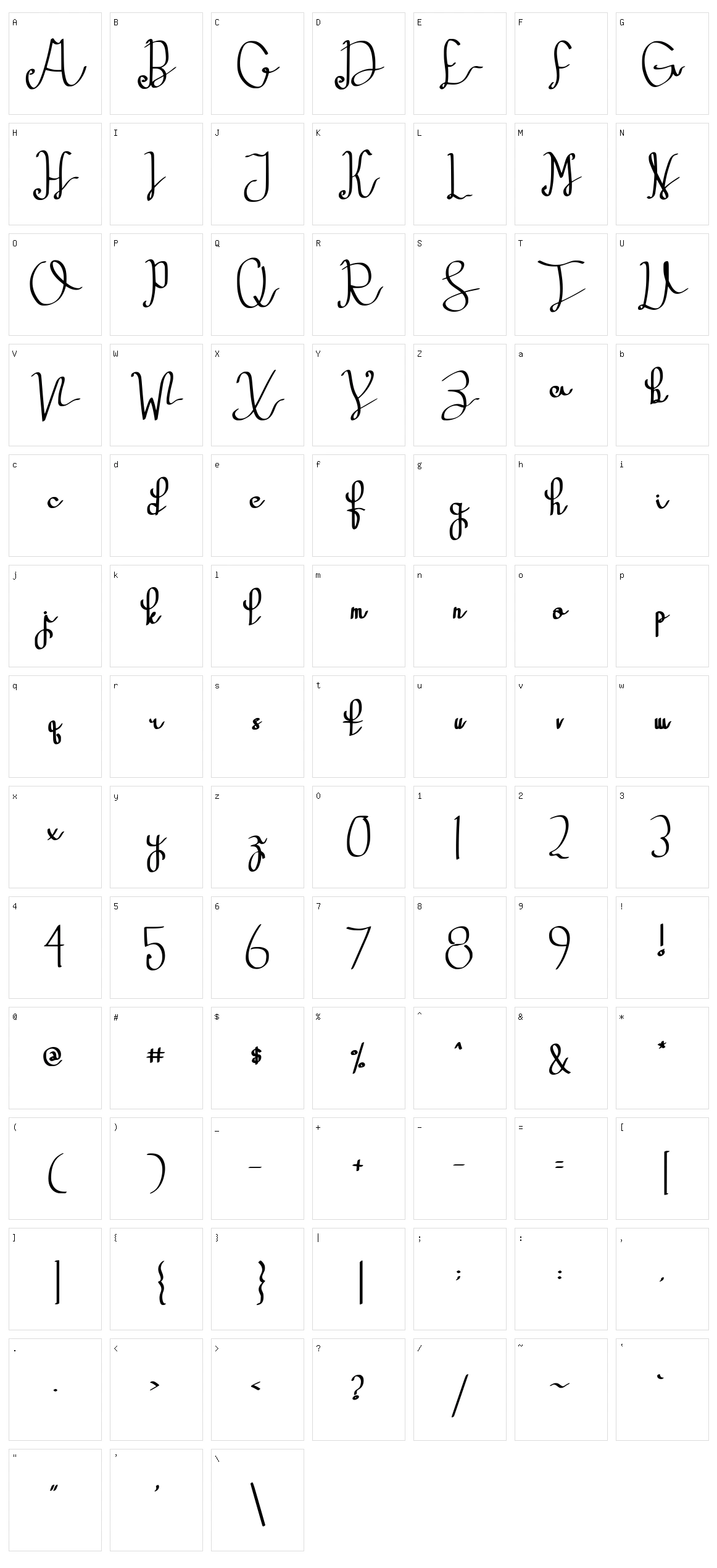
The free font Brunella is carefully designed by Darno Wiyanto, showcasing a thoughtful balance of creativity and usability and falls under the Script font style. When you download the ZIP file, it contains only 1008.08 KB of font files, making it lightweight and quick to download. Please review the license details below to understand permitted usage and distribution rights. If license information is not available, we recommend using this font for personal projects only or contacting the author directly for commercial usage permissions.